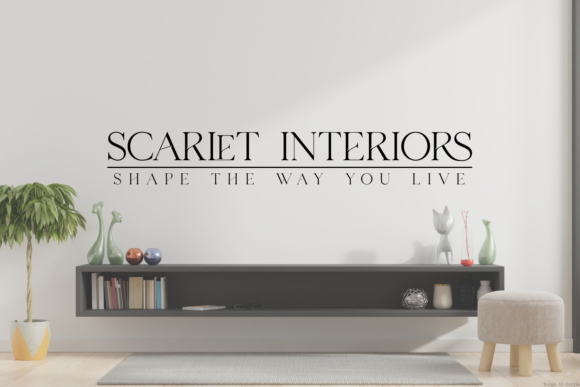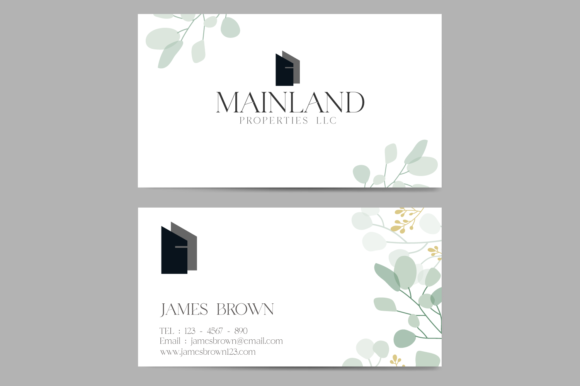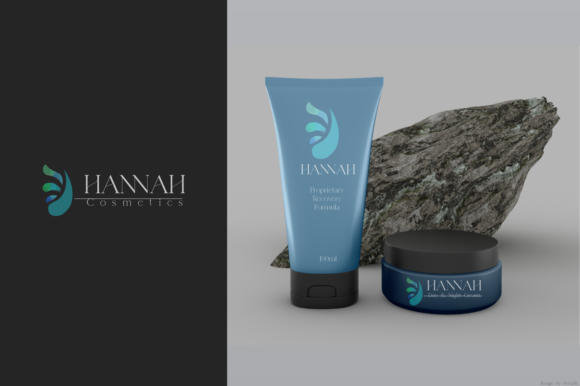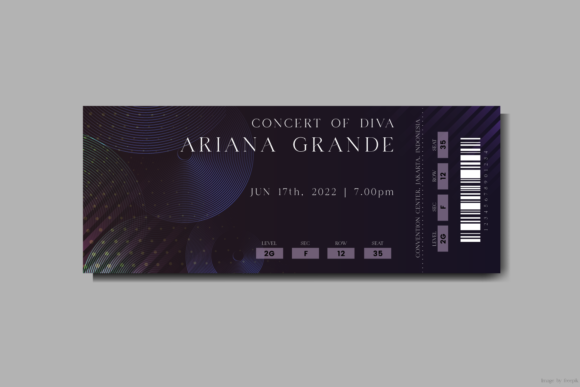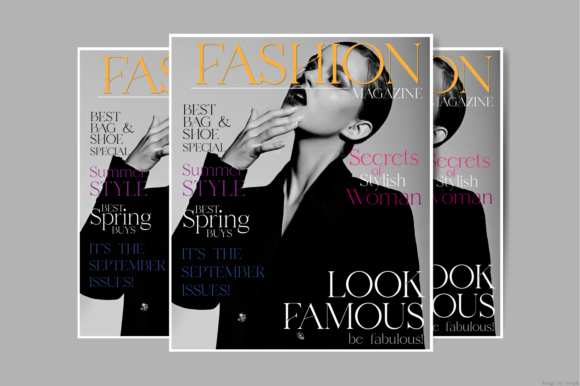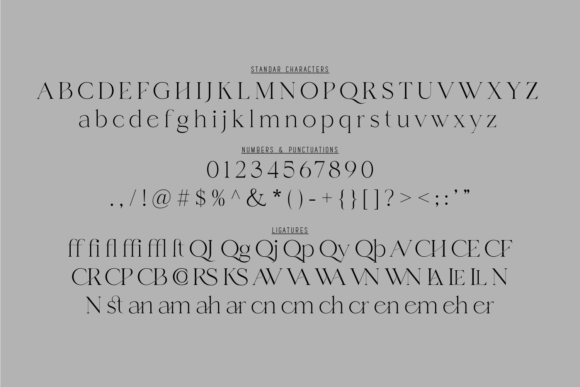
Discover the Elegance of Channe Font: Elevate Your Designs with Style
In the world of typography, fonts play a crucial role in conveying messages, evoking emotions, and creating lasting impressions. For designers, crafters, and anyone looking to add a touch of sophistication to their projects, the Channe Font is an exceptional choice. This tall, thin, and incredibly stylish serif font is versatile and can be used for a multitude of purposes, ranging from logos and wedding invitations to headings, t-shirts, letterhead, signage, labels, news, posters, badges, and so much more.
What Makes Channe Font Stand Out?
Channe Font is distinguished by its elegant and refined appearance. Its tall and thin structure gives it a unique presence on any medium, making it perfect for designs that require a touch of luxury and sophistication. The serif details add a classic feel, ensuring that your designs are not only contemporary but also timeless.
One of the key advantages of Channe Font is its versatility. It can be seamlessly integrated into various design projects, including:
- Logos: Create memorable and elegant logos that stand out.
- Wedding Invitations: Add a touch of sophistication and romance to your wedding invitations.
- Headings: Elevate your website, blog, or magazine with stylish headings.
- T-Shirts: Design unique and fashionable t-shirts that appeal to a wide audience.
- Letterhead: Professionalize your business correspondence with elegant letterheads.
- Signage: Create eye-catching signage that captures attention.
- Labels: Design labels that are both informative and stylish.
- News: Use Channe Font for news articles to give them a classic and authoritative look.
- Posters: Craft compelling posters for events, promotions, or awareness campaigns.
- Badges: Design badges that are perfect for conferences, workshops, or product launches.
Why Designers and Crafters Love Channe Font
Channe Font has quickly become a favorite among designers and crafters for several reasons:
- Elegance: It adds an unparalleled level of elegance to any design.
- Readability: Despite its thin structure, Channe Font remains highly readable, making it suitable for both headings and body text.
- Uniqueness: Its distinctive style ensures that your designs stand out from the crowd.
- Easy to Use: Channe Font is easy to integrate into various design tools and software, making it convenient for immediate use.
Tips for Using Channe Font Effectively
To maximize the impact of Channe Font in your designs, consider the following tips:
- Pair with Complementary Fonts: Combine Channe Font with sans-serif fonts for a balanced look.
- Adjust Line Spacing: Ensure adequate line spacing to maintain readability, especially in longer texts.
- Experiment with Colors: While Channe Font looks great in black, experimenting with colors can add a unique touch to your designs.
- Consider Size: Play with different font sizes to create visual hierarchy and emphasize key information.
Channe Font is a stylish and versatile serif font that can elevate your designs to new heights. Its elegance, readability, and uniqueness make it an excellent choice for a wide range of projects. Whether you’re a professional designer or a crafter looking to add a touch of sophistication to your creations, Channe Font is sure to meet your needs. Explore the possibilities with Channe Font today and discover how it can transform your designs.